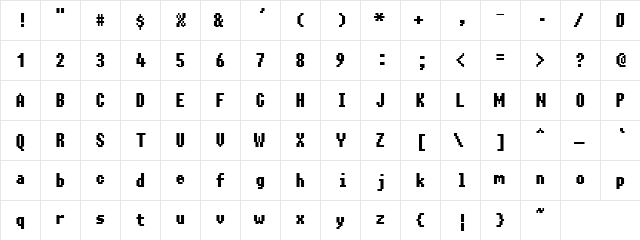
Charybdis Regular
Design Context for Charybdis Typeface
Charybdis offers clean, dependable letterforms without strong stylistic allegiance, making it a practical choice for designers who need flexibility.
Pro Tip: Pair Charybdis with a font of contrasting weight or personality to build a more expressive typographic hierarchy.